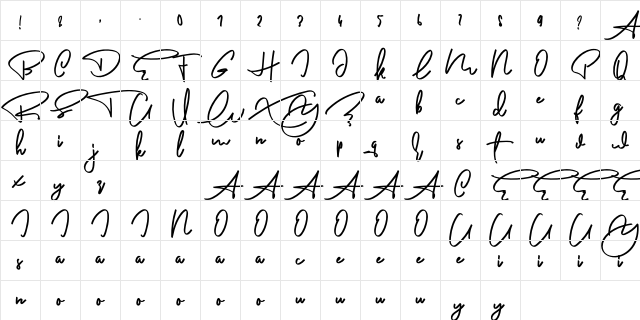
AnderfontFree Regular Free Font
AnderfontFree Regular
Foundry: alphArt Co.
Designer: Agung Rohmat
Design Context for AnderfontFree
AnderfontFree is a composed and adaptable typeface that performs quietly and consistently across a wide range of design contexts.